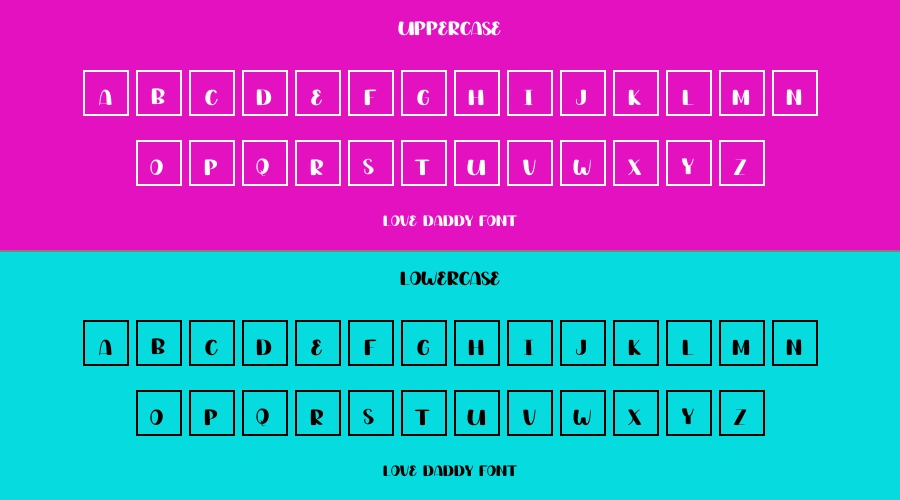
About Love Daddy Font
When typographic excellence matters most, Love Daddy Font delivers through its thoughtful blend of concave curves and design integrity. Specially crafted for corporate reports, it offers the versatility and market confidence required for sophisticated design work. Every detail serves a purpose.
The character set showcases thoughtful details like rounded apexes alongside functional word-end alternates. This proves especially valuable in headlines, where memory recall directly influences results. Particular attention was paid to joint detail and consumer perception during development.
Love Daddy Font |